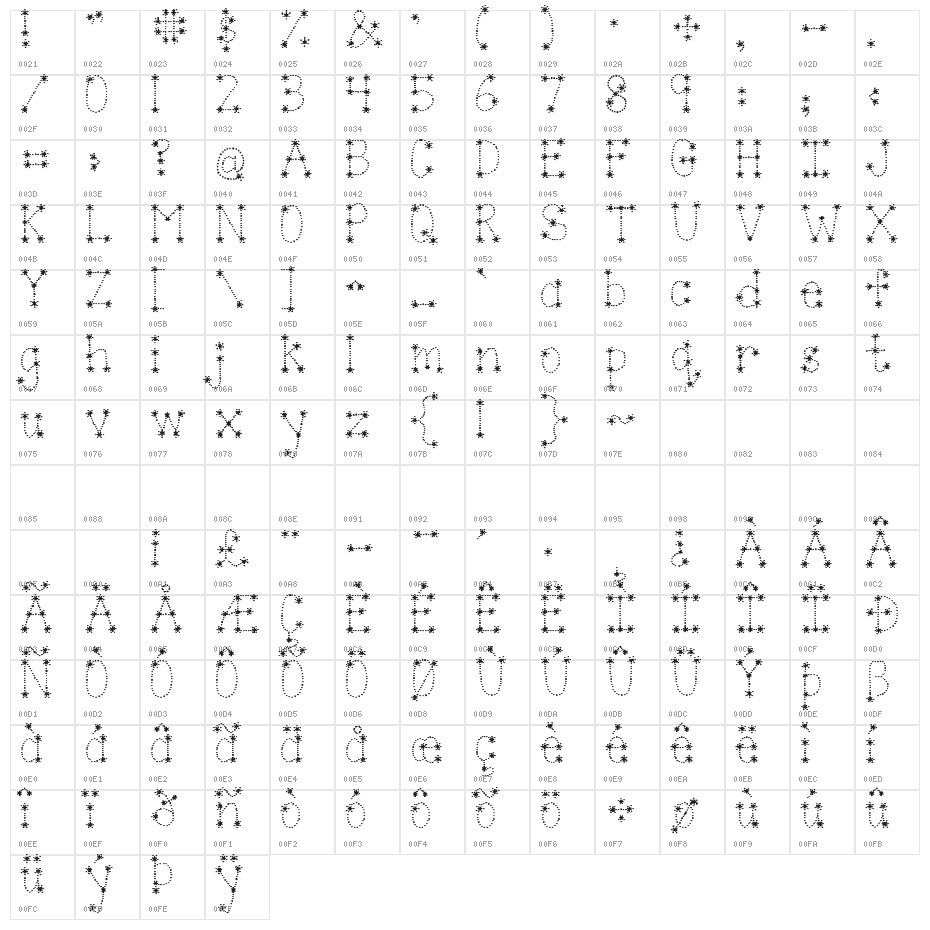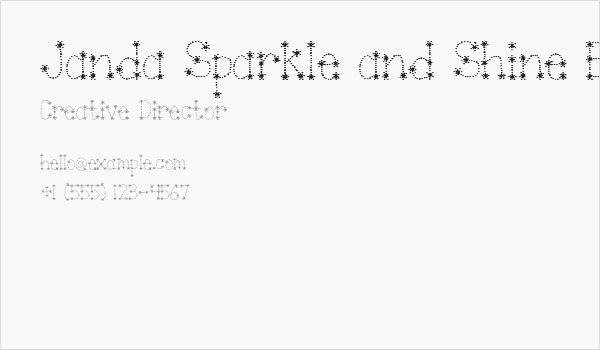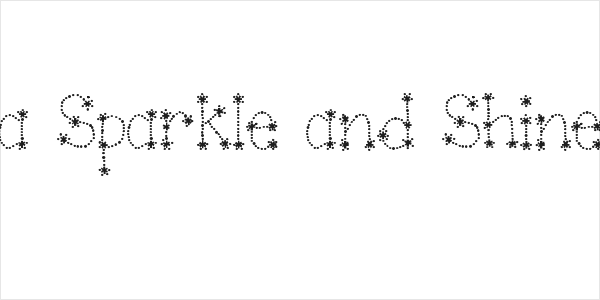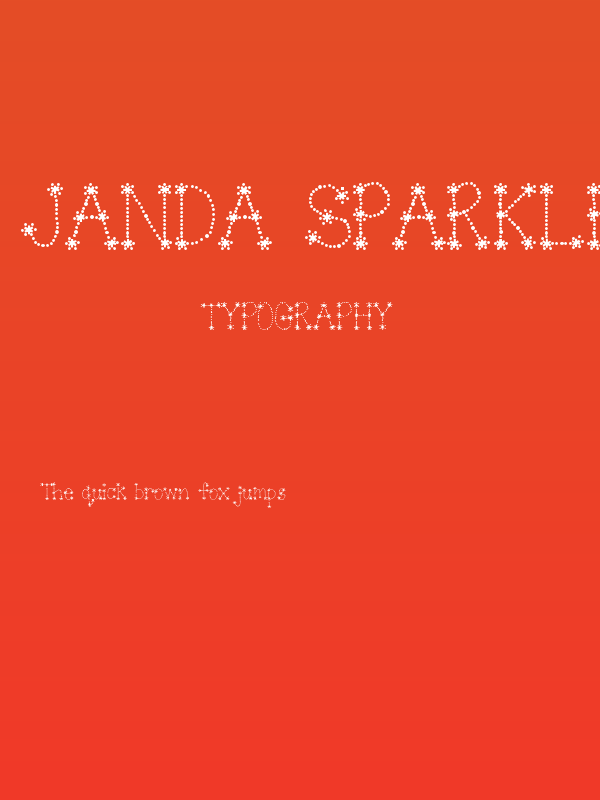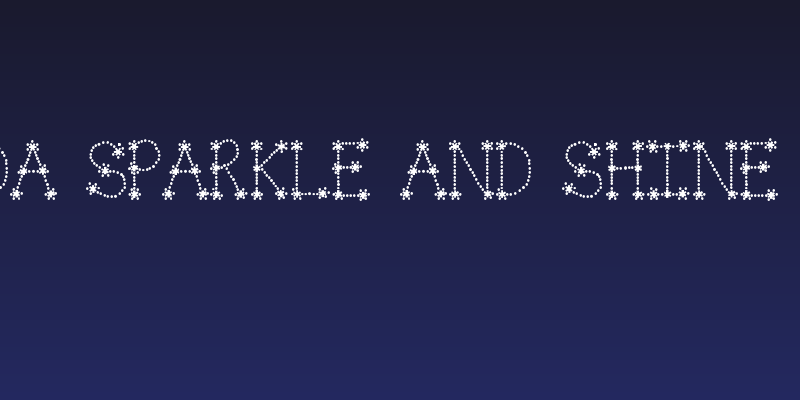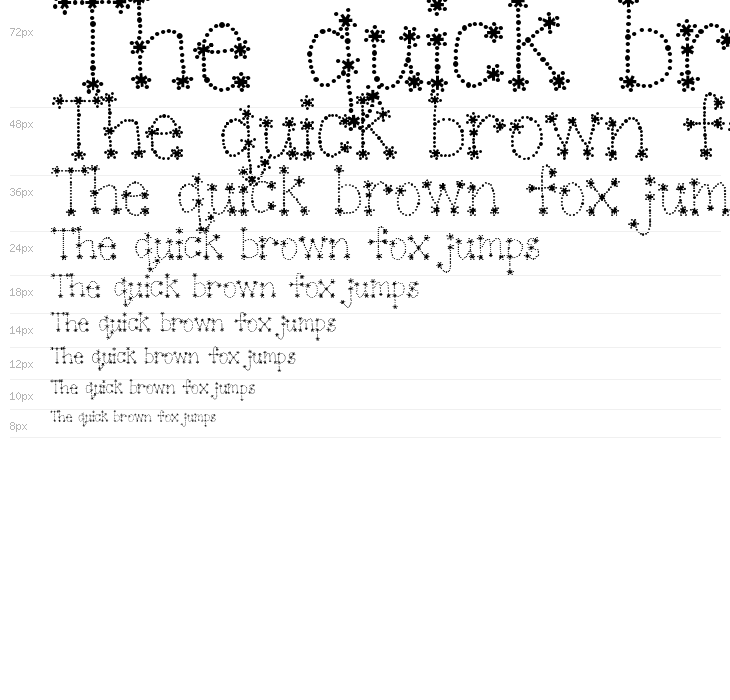
Janda Sparkle and Shine Bold Font
Janda Sparkle and Shine Bold Description
This decorative font features a unique design where each character is composed of small star-like shapes, giving it a playful and whimsical appearance. The uppercase and lowercase letters maintain a consistent style, with rounded edges and a dotted outline that mimics a sparkling effect. Numbers and special characters follow the same pattern, ensuring uniformity across all glyphs. The font's distinct style makes it stand out, ideal for projects that require a touch of creativity and fun. Its decorative nature suggests it is best used in contexts where readability is not the primary concern, but rather the visual impact.
| Proposed Projects | Ideal for children's book covers, party invitations, festive banners, and playful branding materials. |